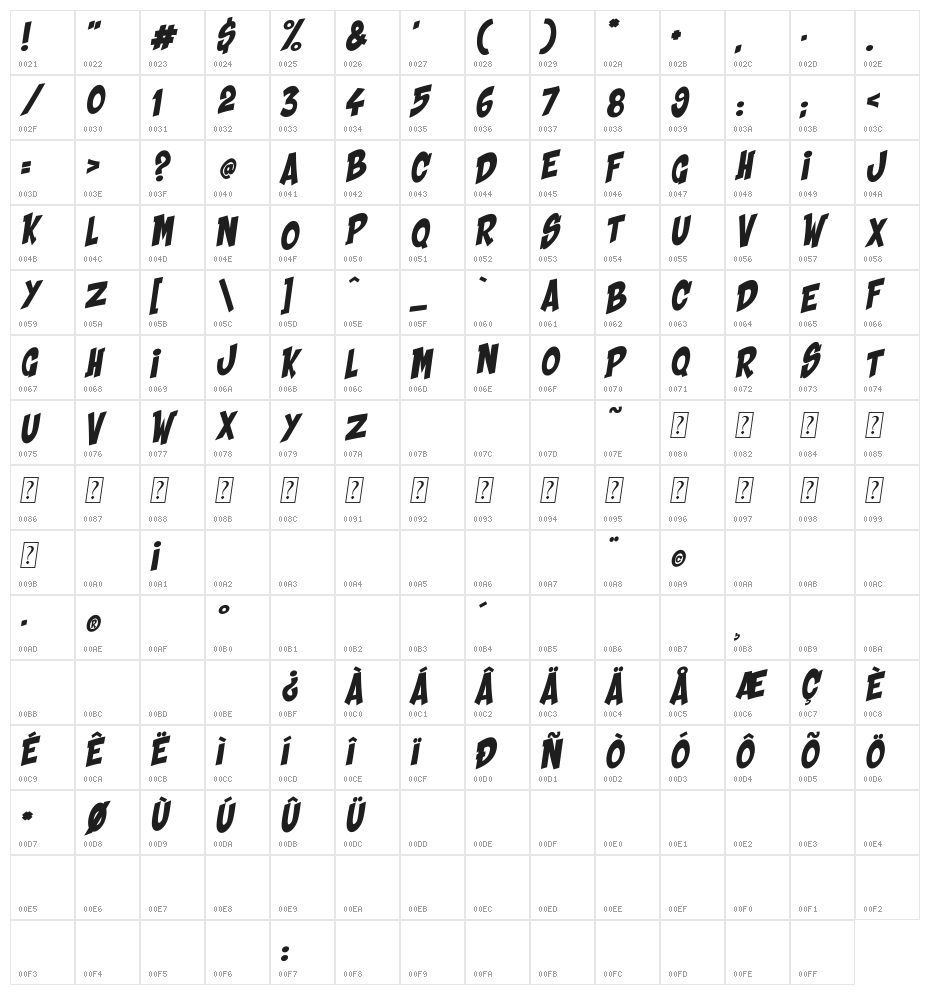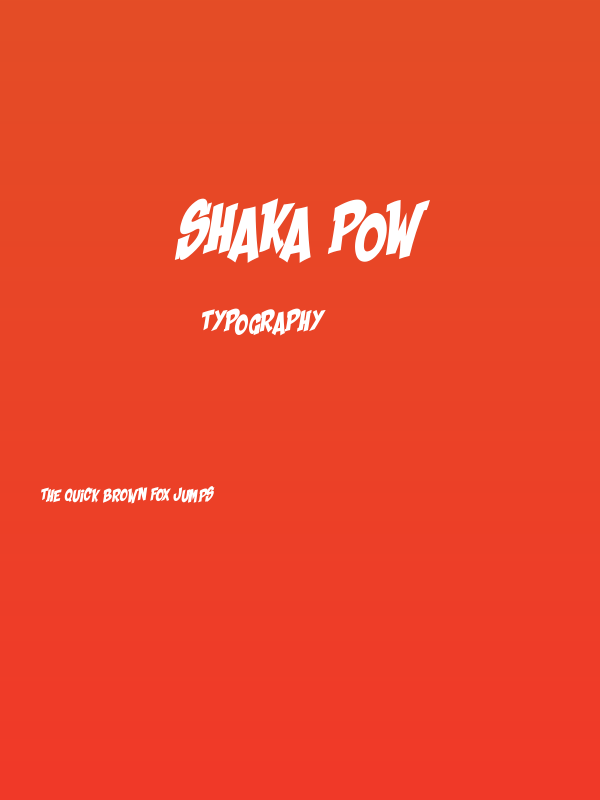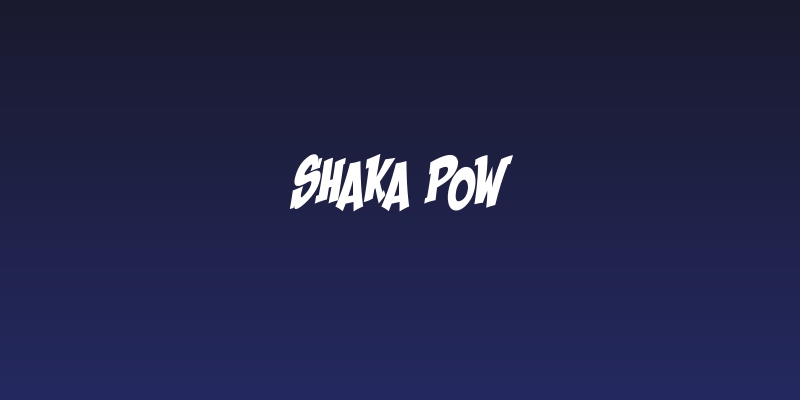
Shaka Pow Font
Shaka Pow Description
This font features a bold, energetic style with a dynamic, slanted appearance that conveys a sense of movement and excitement. The characters are thick and robust, with sharp angles and exaggerated curves that give them a playful yet assertive look. The uppercase and lowercase letters maintain a consistent style, with a slight variation in size and shape that adds to the font's lively character. The numbers and special characters are equally bold and expressive, making them stand out prominently. This font is ideal for projects that require a strong visual impact and a fun, engaging aesthetic.
| Proposed Projects | Perfect for comic books, posters, event flyers, and branding that requires a lively and impactful design. |